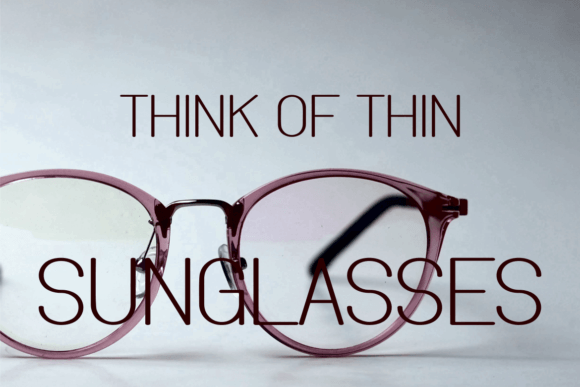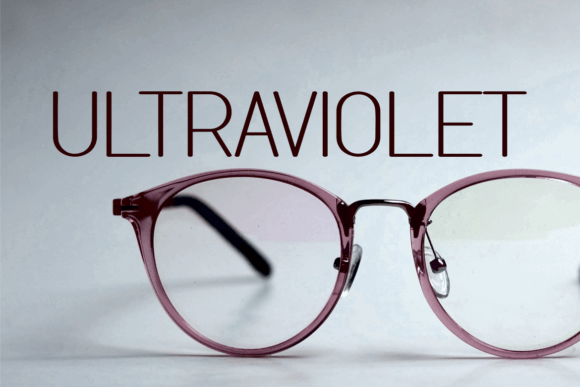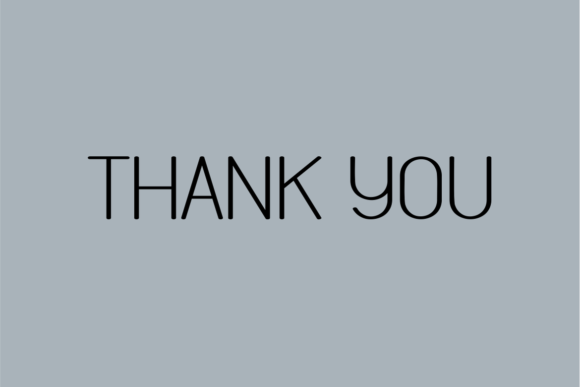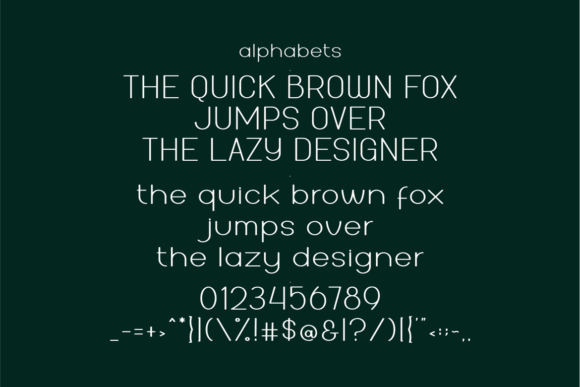
Introduction to Religrach Font
As designers, we’ve all been there – staring at a blank canvas, eager to bring our creative vision to life. The perfect font can make all the difference, elevating our work from good to great. And that’s exactly what the Religrach Font does – it’s a game-changer for designers who want to add a touch of elegance and sophistication to their projects.
With its sleek, modern design, the Religrach Font is perfect for fashion and apparel projects, as well as signatures, album covers, logos, and branding. Its versatility makes it a valuable resource for designers who want to create high-quality designs that stand out from the crowd. Whether you’re working on a creative project or just need a reliable design resource, the Religrach Font is sure to impress.
Key Features of Religrach Font
- High-quality design resource for creative projects, ideal for use in digital art and graphic design.
- Religrach Font features a transparent background, allowing for easy layering and customization in creative projects.
- Designed with high resolution in mind, suitable for use in print and digital media at 300 DPI or higher.
- Unique, modern design style that can add a touch of sophistication to any creative project.
- Perfect for use in logos, typography, and other design elements, due to its versatility and high-quality design.
Honest Review: Religrach Font
As a designer, I’m always on the lookout for high-quality fonts to elevate my creative projects. The Religrach Font caught my attention, and I decided to give it a try.
What works well about the Religrach Font is its unique, modern design. The font’s clean lines and elegant curves make it perfect for a variety of projects, from digital interfaces to printed materials. I particularly like the way the font scales, remaining legible even at smaller sizes. ✨
The Religrach Font also comes with a transparent background, making it easy to layer over images or other design elements. This is a huge plus for designers who need to create complex compositions.
However, I did encounter some limitations with the font. The Religrach Font is not as versatile as some other fonts, and it may not be suitable for projects that require a more conservative or traditional aesthetic. ⚠️
Overall, I’m impressed with the Religrach Font. While it may not be the perfect fit for every project, it’s a great addition to any designer’s toolkit.
- Unique, modern design
- Scalable and legible
Tips for Getting the Most Out of Religrach Font
For a high-quality design, use the Religrach Font on a transparent background to create a creative and modern look.
Common Use Cases for Religrach Font
The Religrach Font is perfect for creative projects, such as logos, branding, and marketing materials.
Use the Religrach Font to add a touch of elegance and sophistication to your designs.